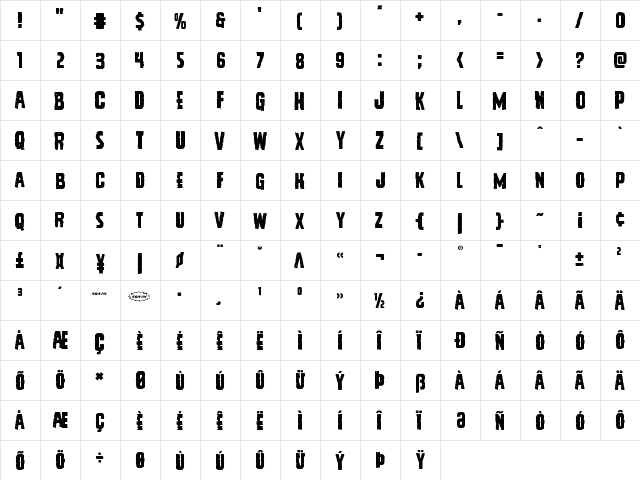
Vicious Hunger Regular
Design Context for Vicious Hunger Typeface
Vicious Hunger is a composed and adaptable typeface that performs quietly and consistently across a wide range of design contexts.